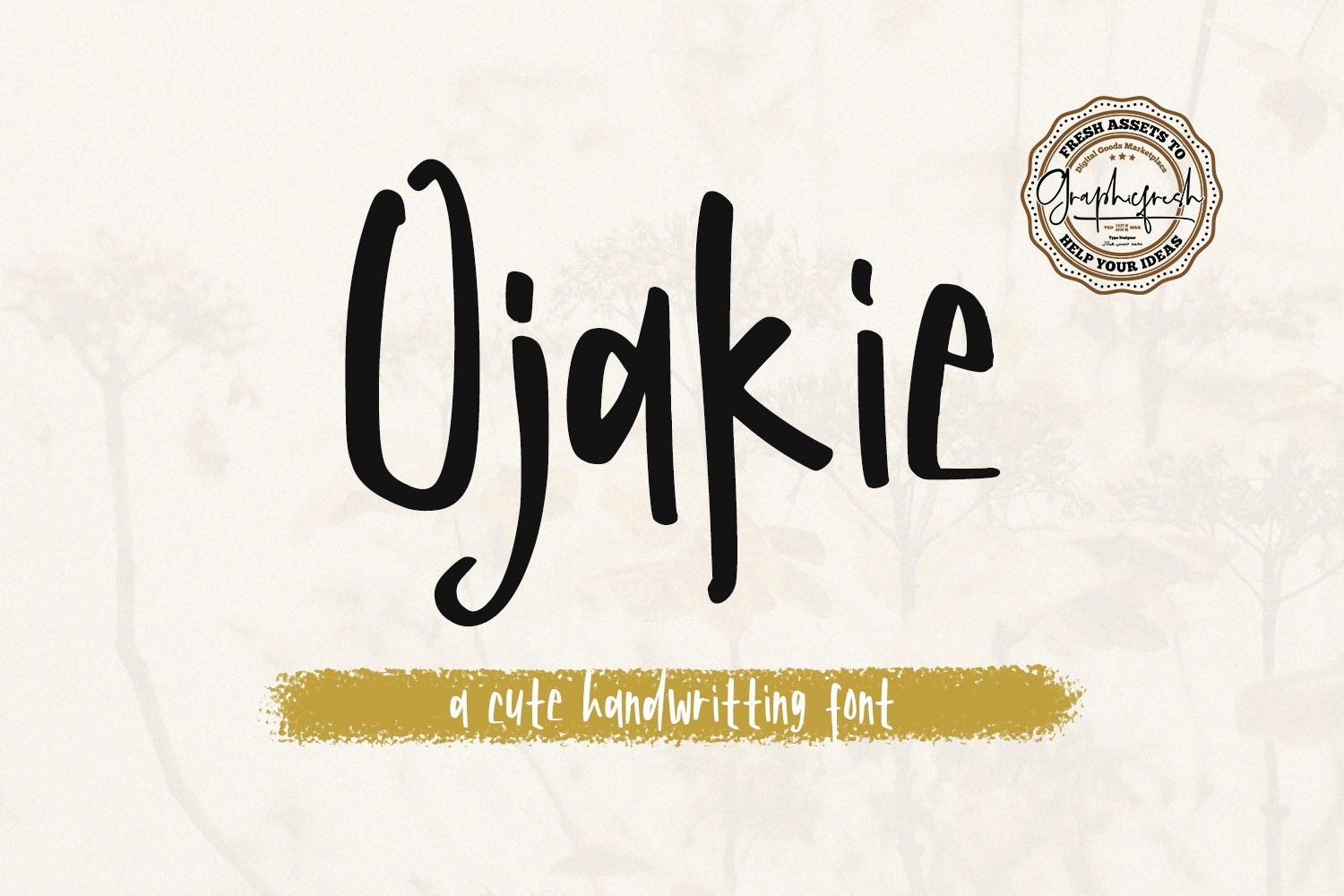
Ojakie - Cute Display Font
Introducing Ojakie - Cute Display Font. It comes with an elegant, cute and feminine style which is perfect to make any design stand out! This font is perfect for branding, wedding invites, magazines, mugs, business cards, quotes, posters, and more.
Ojakie Type Features:
- Suitable for Headlines, Logotypes, Signs, Posters, Letterhead, T-Shirt and many more.